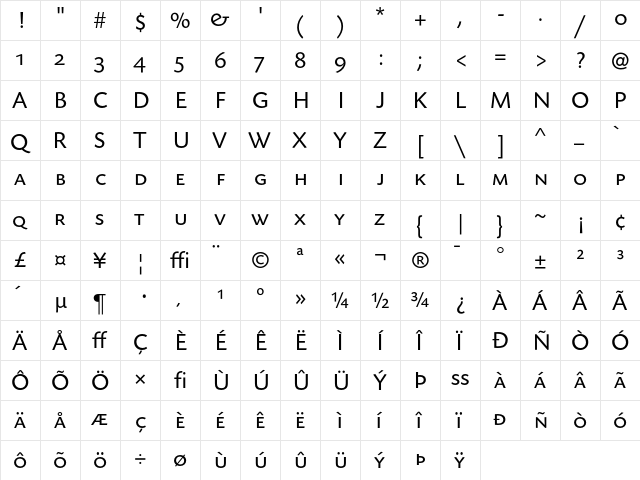
TodaySB-Caps Regular Font Preview
TodaySB-Caps Regular
Design Context for TodaySB-Caps Typeface
TodaySB-Caps offers clean, dependable letterforms without strong stylistic allegiance, making it a practical choice for designers who need flexibility.